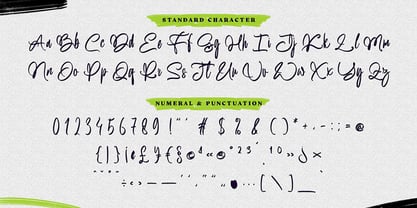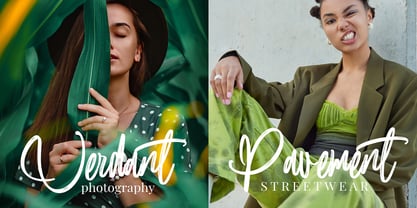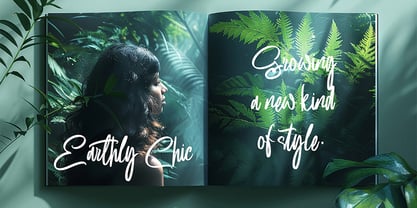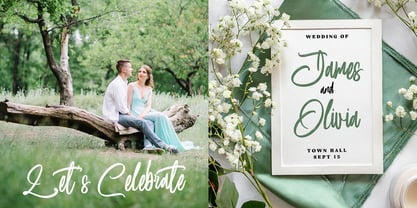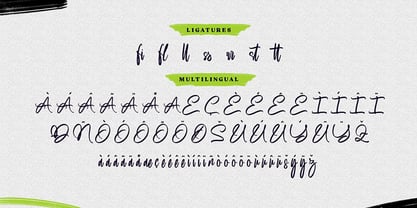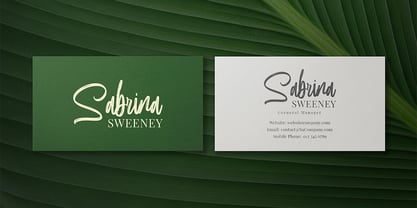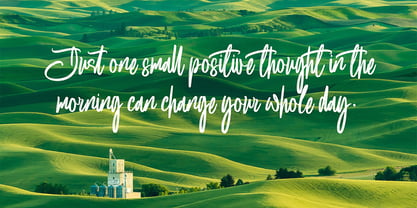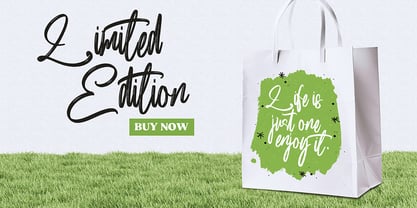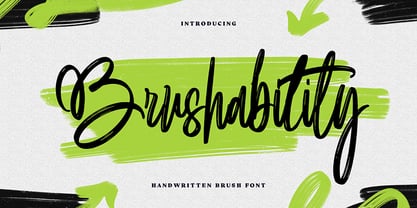
Brushability
by Geelator Studio
The Brushability Font Family was designed by Gilang Tito Dharmawan and published by Geelator Studio. Brushability contains 1 styles. More about this family
Looking for a handwritten font with a vibrant, artistic feel? Introducing "Brushability," a versatile and stylish handwritten brush font perfect for adding a personal touch to your designs. Its natural, free-flowing strokes make it an excellent choice for logos, branding, quotes, wedding invitations, posters, social media, headlines, and much more.
Designers: Gilang Tito Dharmawan
Foundry: Geelator Studio